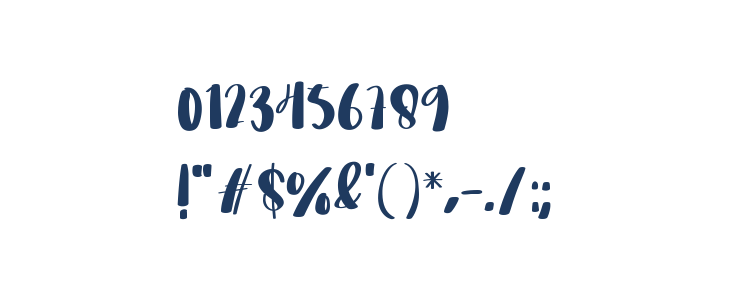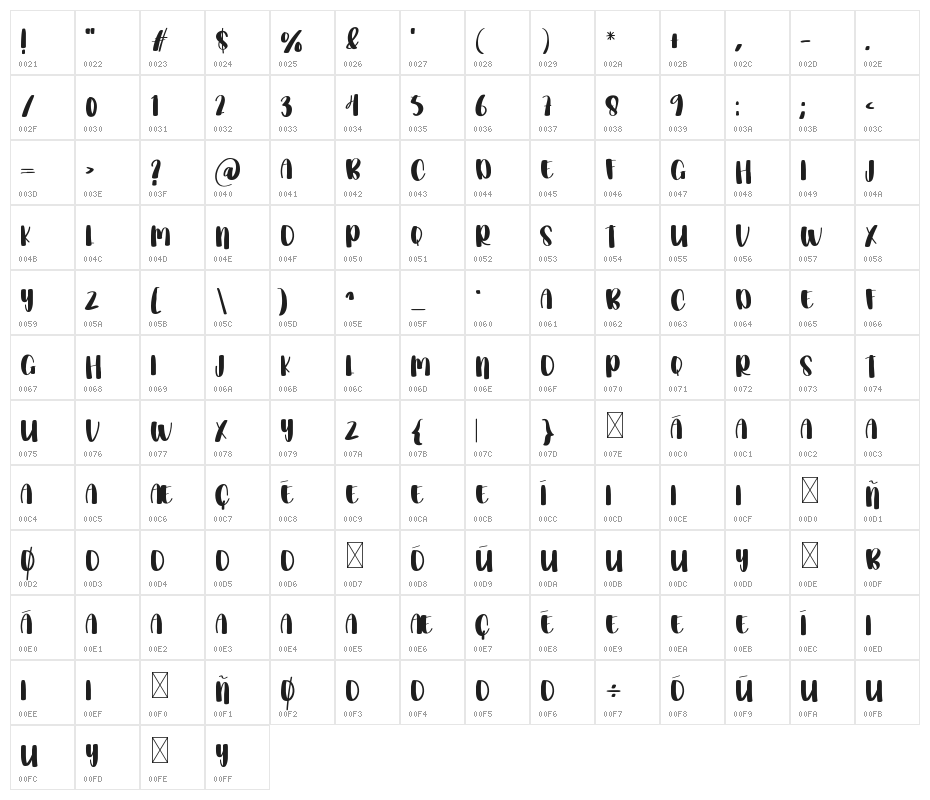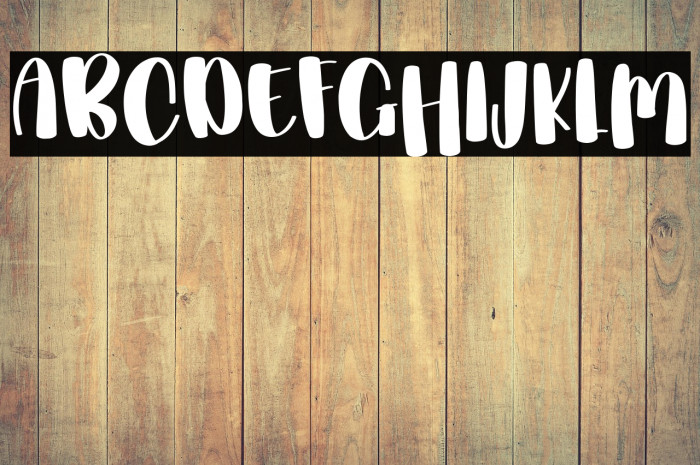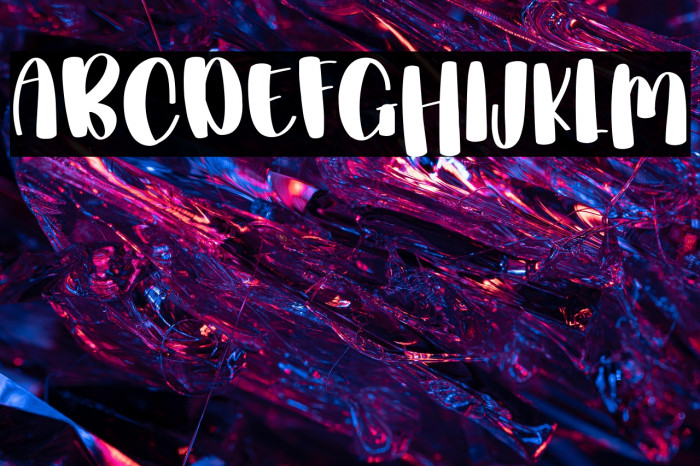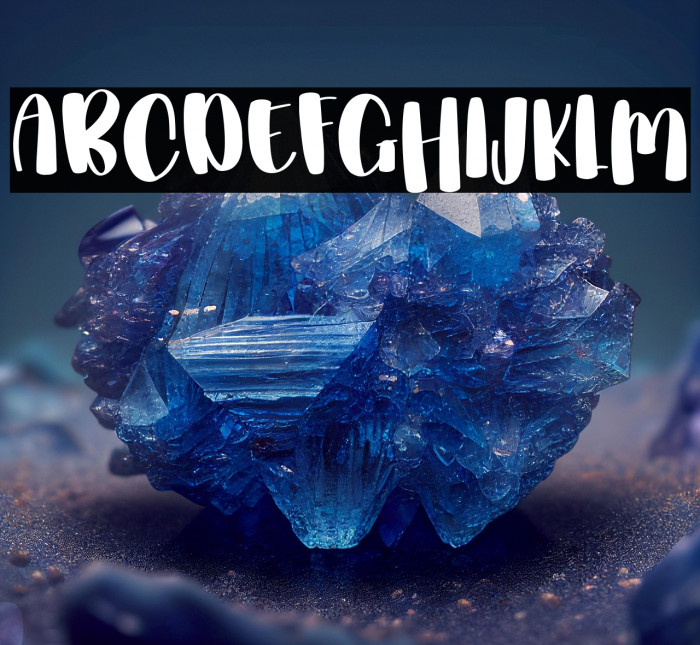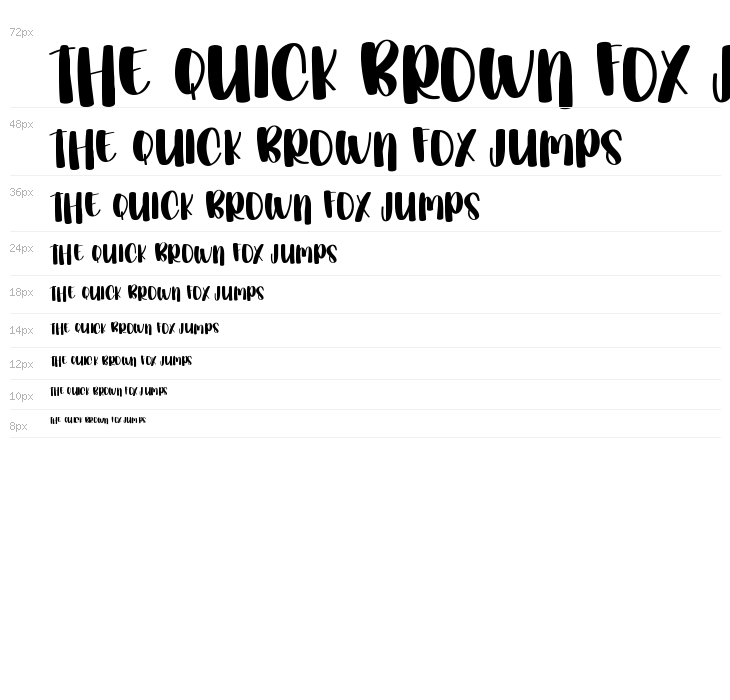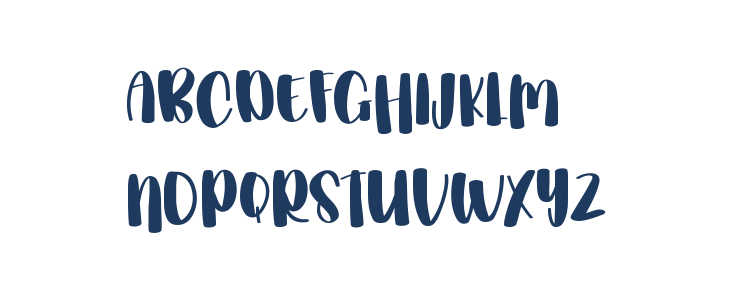
Babe Font
Babe Description
This font features a bold, playful script style with a modern flair. The characters are thick and rounded, giving a sense of friendliness and approachability. The uppercase and lowercase letters maintain a consistent flow, with some letters featuring unique swashes and curves that add to its decorative appeal. The numbers and special characters are equally bold and maintain the same playful aesthetic. This font is perfect for projects that require a touch of whimsy and creativity, such as children's books, playful branding, or eye-catching headlines.
| Use Case | Headlines, Logos, Creative designs |
| Proposed Projects | Ideal for children's books, playful branding, eye-catching headlines, and creative designs. |